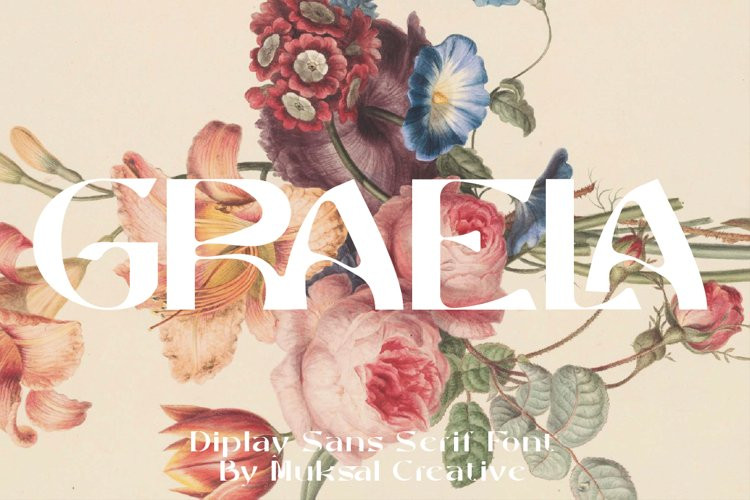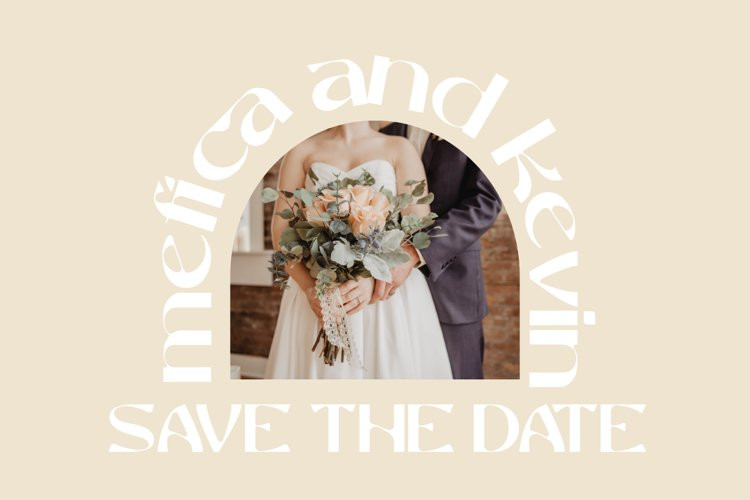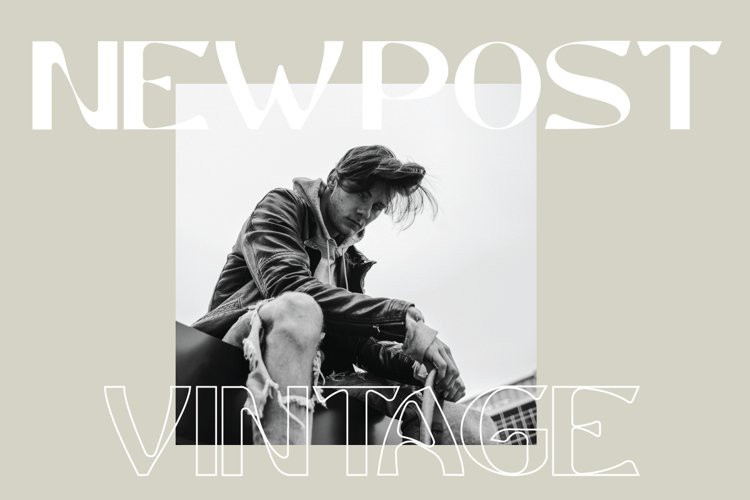
Graela Font
Graela FontA new Display Sans serif that we created special for branding needs, with extra ligature in unique shape add value of your brand. It so nice to leverage designer or product owner that need solutions to make their design look more stylish and modern.We prepared any ligatures, characters to help you create unlimited variations for your creative needs.